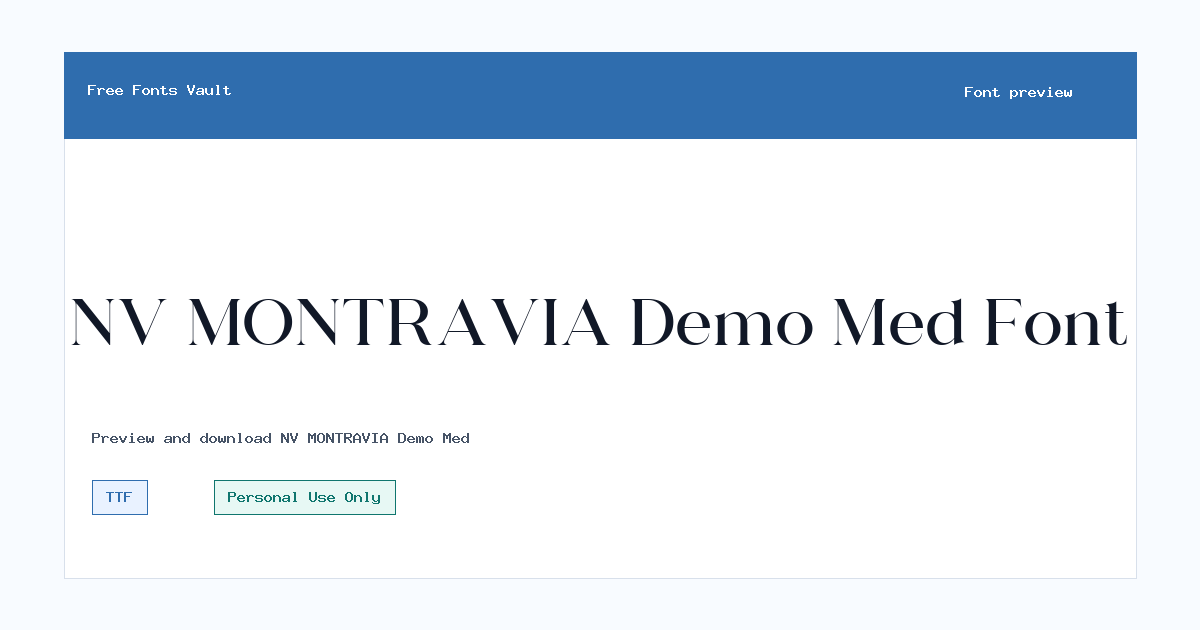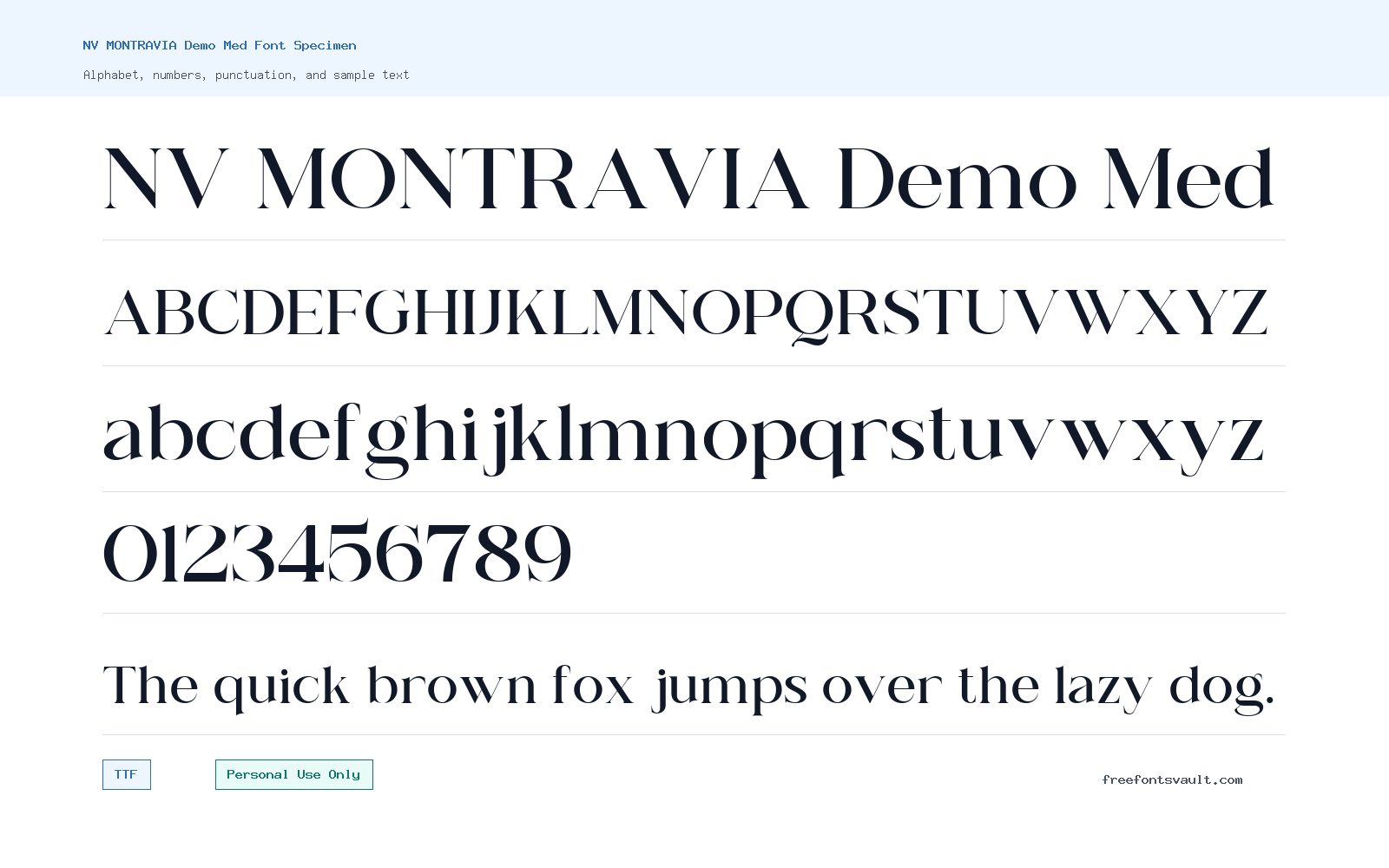
NV MONTRAVIA Demo Med
NV MONTRAVIA Demo Med is a medium-weight demo font from NovaraType, shared as a TTF file for personal-use projects. It is a good font to test when you need a measured serif style for display text, drafts, and visual mockups.
NV MONTRAVIA Demo Med belongs to the NV Montravia Serif Font Family license listing, and the file name points to a Medium demo cut. That makes it most useful for trying the tone of the family before using it in a larger design system. The 500 weight gives it more presence than a light or regular text face without moving into heavy headline territory. Use it when you want text to feel composed and clear, especially in short phrases where the shape of each letter can be seen.
For designers, this font is best tested in real words rather than only alphabet previews. Try it in a logo concept, magazine-style title, quote graphic, invitation mockup, book cover draft, or Pinterest pin headline. Because it is a demo font, check the character set before committing to a design. Some demo releases may not contain every punctuation mark, accent, currency symbol, or full multilingual range. If your layout needs long paragraphs, small captions, or interface text, test several sizes first. A medium serif can look polished in headings but may need careful spacing and contrast when used in dense body copy.
- Medium 500 weight, useful for titles, short display lines, and balanced branding tests.
- Normal style variant, suited to straightforward upright typography rather than italic or decorative alternates.
- Logo drafts and brand presentation mockups where a serif look is being tested.
- Poster titles, cover concepts, and social media graphics with short headline text.
- Editorial layouts, mood boards, and invitation concepts that need a calm serif voice.
What does the "Med" in the name mean?
The font file is marked with a 500 weight and the file name uses "Medium," so "Med" refers to the medium-weight demo style.
Is this good for body text?
It may work in short text blocks, but test it carefully at smaller sizes. A medium serif is often more comfortable for headings, covers, and short display lines than for long reading passages.
What should I pair with NV MONTRAVIA Demo Med?
Try a clean sans serif for body copy, captions, and navigation. Keep the pairing simple so the serif headline style does not compete with another decorative font.